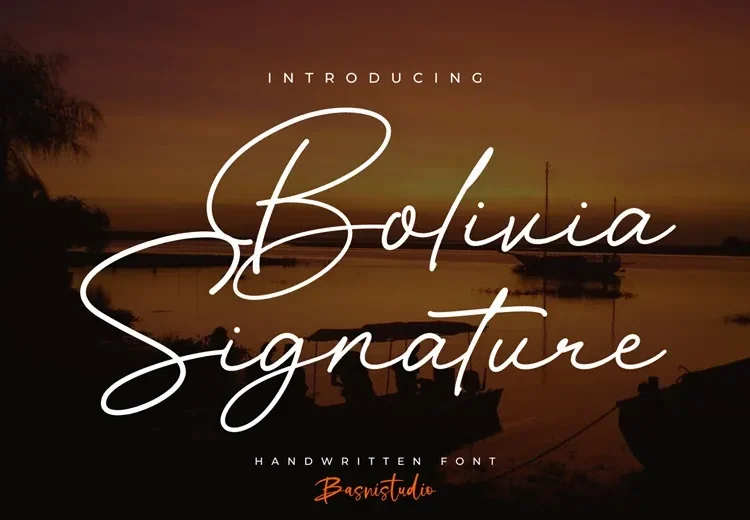
Bolivia Signature Font
Introducing Bolivia Signature, a beautifully hand-drawn font that captures a natural and organic feel, making it an ideal choice for branding, web, and editorial design. With its sharp details and elegant curves, this font adds a personal touch to any project, making your text come alive with character and charm.
Bolivia Signature encompasses a complete set of uppercase and lowercase letters, ensuring versatility for various design needs. Additionally, it supports multiple languages, all punctuation marks, and a variety of ligatures, providing you with the flexibility to create unique typographic compositions. Designed with OpenType features in mind, this font ensures seamless integration into your preferred design software.